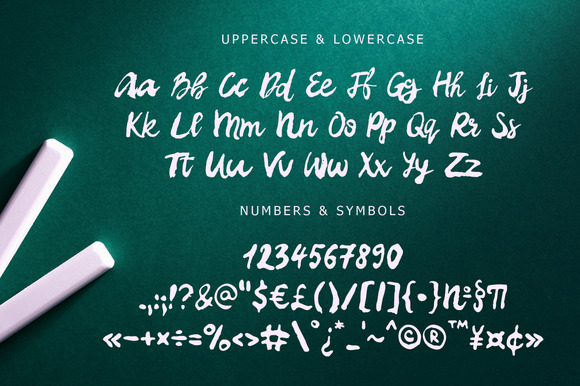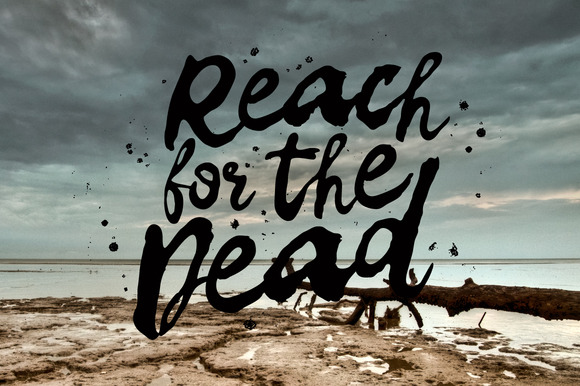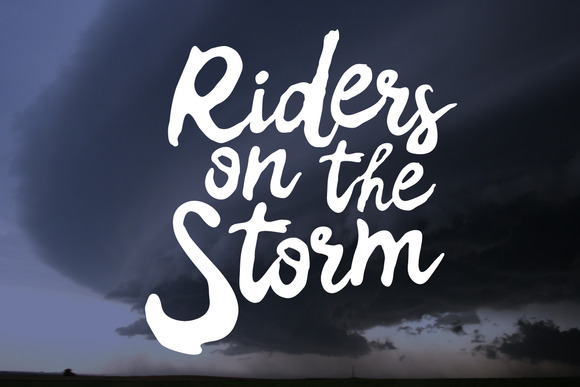
Elvissa Font
About Elvissa Font
Elvissa is a beautiful handmade brush script font.
This beautiful font has a unique mixture of smooth elegance mixed with roughness. This allows you to create unique designs that stand out.